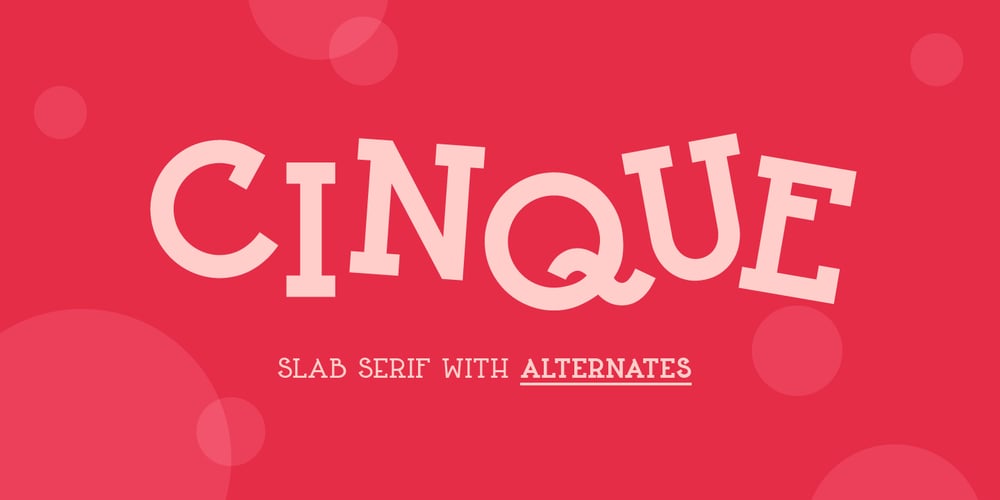
Cinque
Cinque font
Cinque Font Family was designed by Adrianna Bilas and published by Adrianna Bilas. Cinque contains 2 styles and family package options. CINQUE is a new Slab Serif Display Font inspired by Avant-Garde, Art Deco & the aesthetics of ‘The Grand Budapest Hotel’. It gives a new meaning to slab serif with a fresh and authentic touch. This playful and contemporary font incorporates various character alternates allowing flexibility and more creative possibilities. Geometric, fun & fancy!